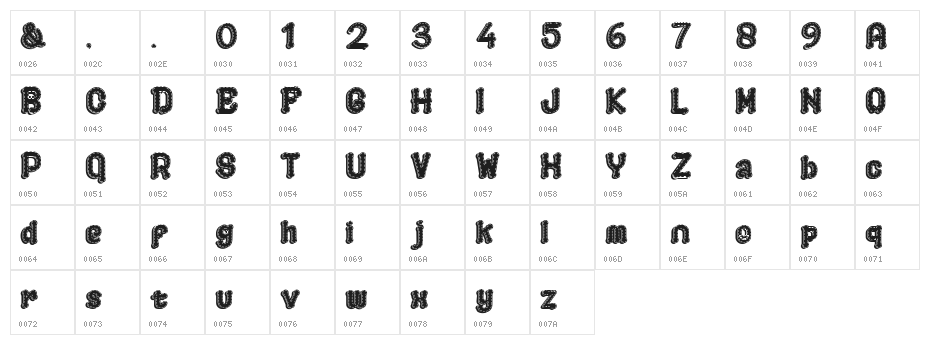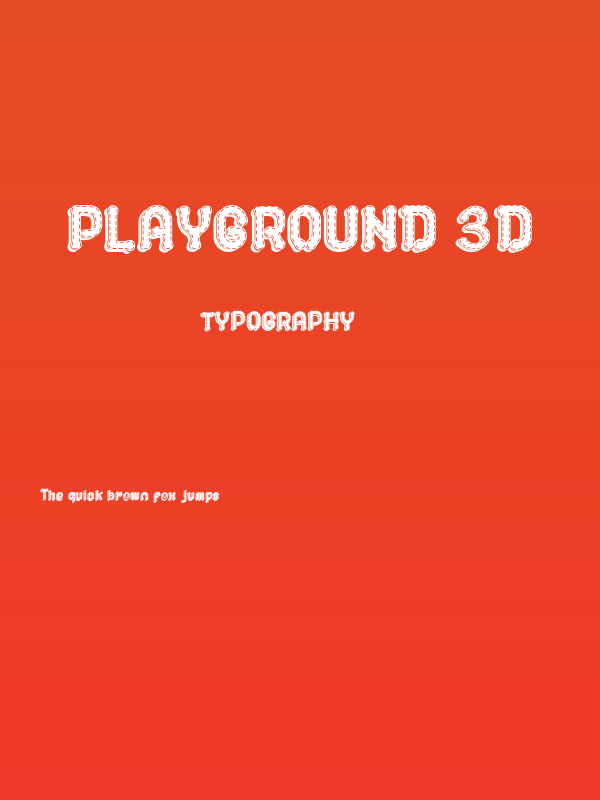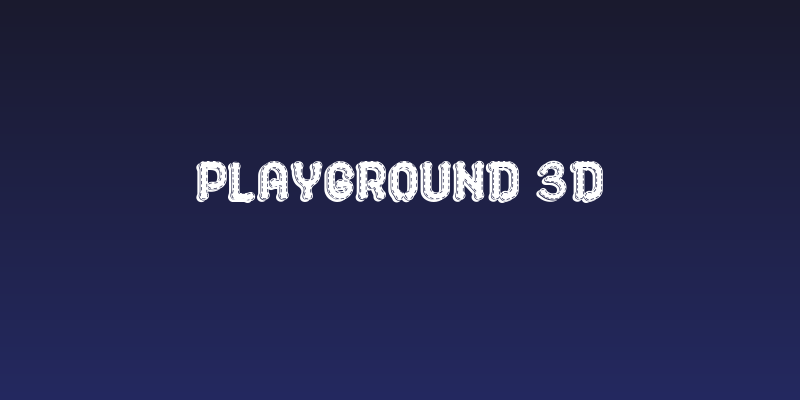
PLAYGROUND 3D Font
PLAYGROUND 3D Description
This playful and bold font features a three-dimensional effect with a dotted outline, giving it a fun and dynamic appearance. The characters are rounded and have a consistent thickness, creating a cohesive look. The uppercase and lowercase letters maintain a uniform style, with the lowercase letters slightly more compact. The numbers and special characters follow the same design principles, ensuring visual harmony across all elements. This font's unique style makes it stand out, making it ideal for projects that require a touch of creativity and whimsy.